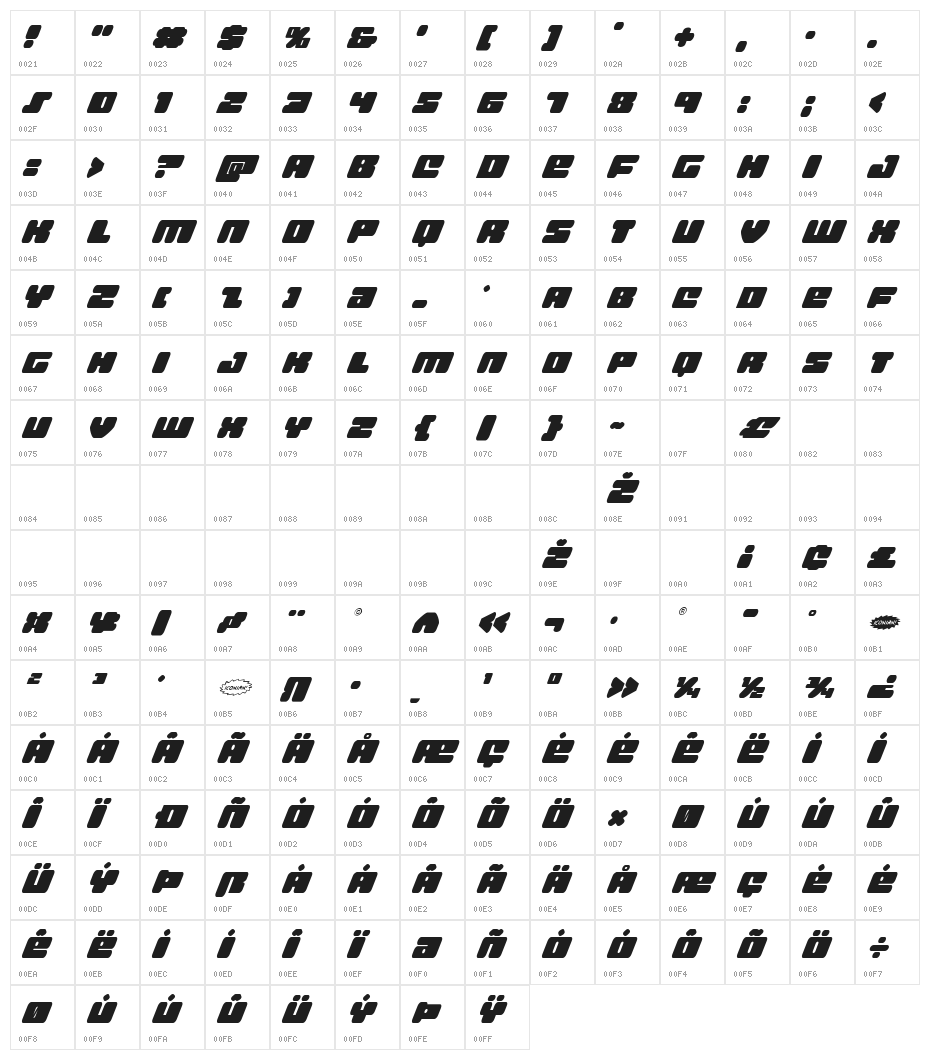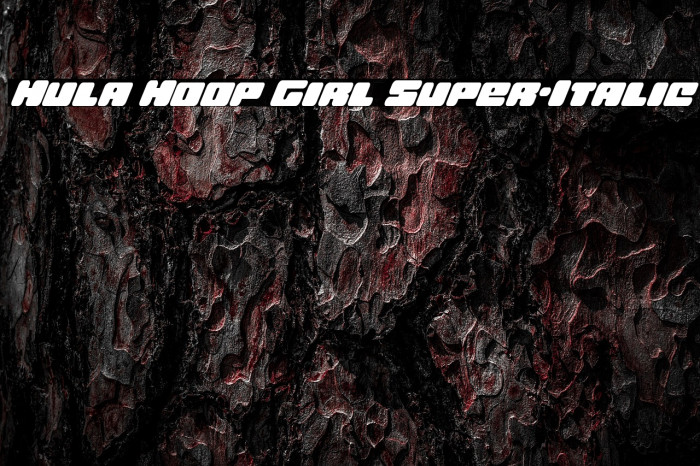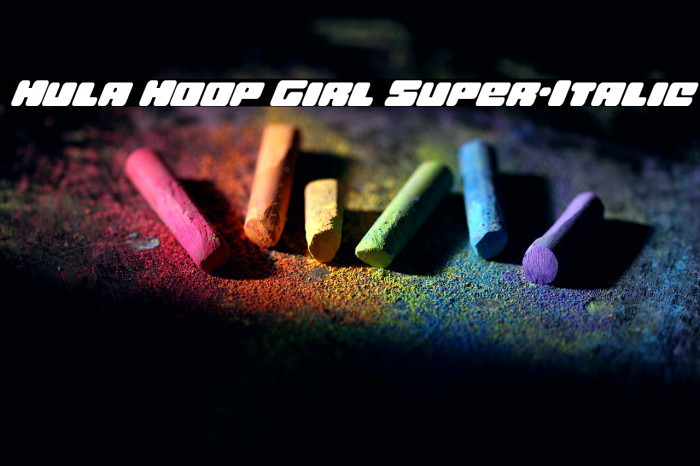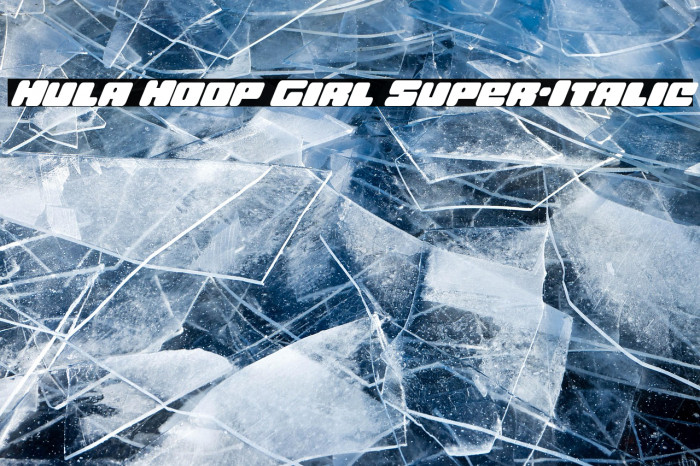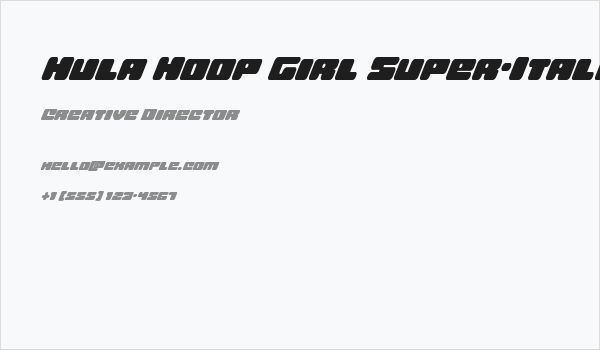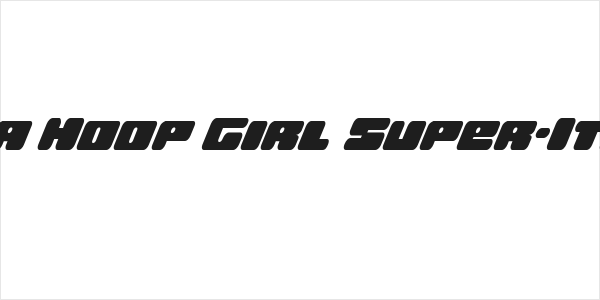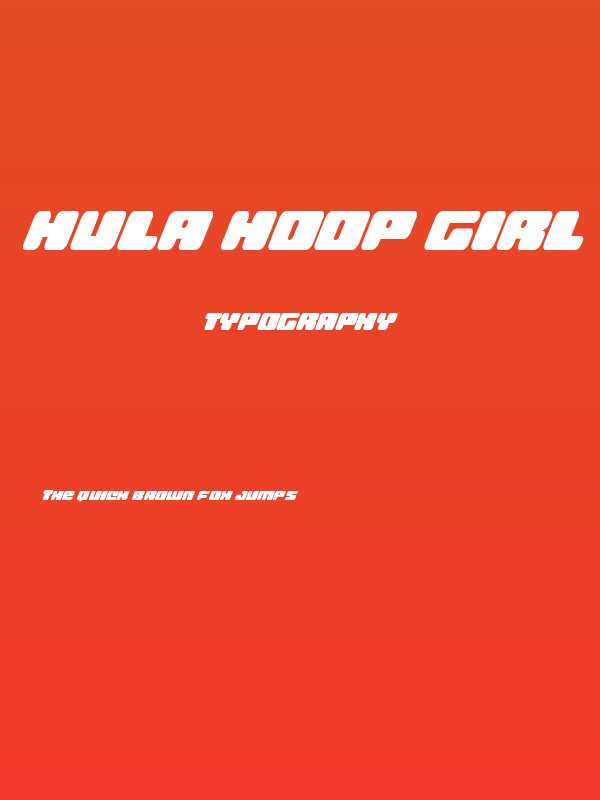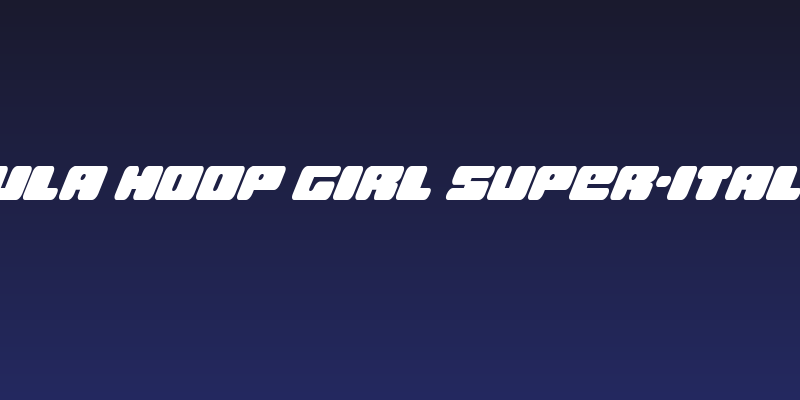
Hula Hoop Girl Super-Italic Font
Hula Hoop Girl Super-Italic Description
This font features a bold and dynamic style with a strong italic slant, giving it a sense of movement and energy. The characters are thick and rounded, with a smooth, continuous flow that suggests a playful yet assertive personality. The uppercase and lowercase letters maintain a consistent weight, contributing to a cohesive appearance. The numbers and special characters are designed to match the boldness and curvature of the letters, ensuring uniformity across all glyphs. This font's unique style makes it stand out, making it suitable for projects that require a bold statement.